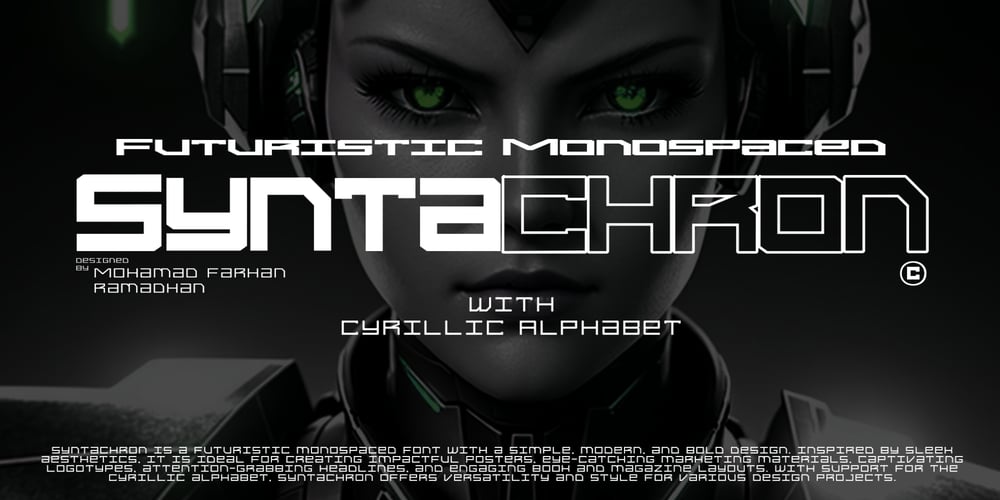
Syntachron Font Family was designed by Mohamad Farhan Ramadhan and published by Mofr24. Syntachron contains 12 styles and family package options. Syntachron is an extraordinary monospaced font that stands out with its futuristic and mecha-inspired design. What sets this font apart is its unique ability to combine simplicity, modernity, and boldness, resulting in a visually captivating typeface. It is the perfect choice for those seeking to create impactful posters, eye-catching marketing materials, captivating logos, attention-grabbing headlines, and engaging book and magazine layouts.One of the distinguishing features of Syntachron is its compatibility with the Cyrillic alphabet, offering versatility and style for a wide range of design projects. Whether you’re working on international branding campaigns or multi-language publications, this font seamlessly integrates with the Cyrillic characters, ensuring consistency and cohesiveness across different languages.In terms of typeface pairing, Syntachron harmonizes exceptionally well with related families and typefaces that share its sleek aesthetics and futuristic vibe. It complements and enhances other fonts, enabling designers to create stunning combinations that amplify the impact of their designs.Beyond its striking appearance, Syntachron excels in its functional aspects. The font comes in a variety of styles, allowing for versatility in design choices. Its monospaced nature ensures consistent character widths, making it ideal for code snippets, technical documentation, and typewriter-style layouts. Furthermore, Syntachron offers a comprehensive character set with special features, enabling the seamless creation of diverse and engaging designs.The design concept behind Syntachron was to capture the essence of a futuristic world and merge it with the mechanical elements of mecha-inspired aesthetics. The result is a font that exudes a sense of cutting-edge technology and boldness, empowering designers to create visually striking and impactful designs that captivate their audience.Syntachron was meticulously created to fulfill the need for a font that seamlessly merges modern simplicity with futuristic design elements. Its purpose is to provide designers with a versatile tool that sparks creativity and enables them to craft stunning visual experiences. With its sleek aesthetics, support for the Cyrillic alphabet, and functional aspects, Syntachron is an indispensable asset for any design project seeking to embrace the future.